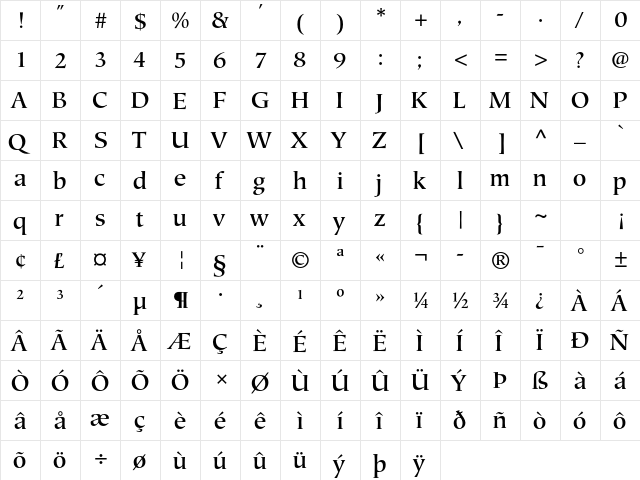
Mariposa Std Medium
Medium · International Typeface Corporation Philip Bouwsma ·
DesignerPhilip Bouwsma
Design Context for Mariposa Std Typeface
Mariposa Std is a composed and adaptable typeface that performs quietly and consistently across a wide range of design contexts.